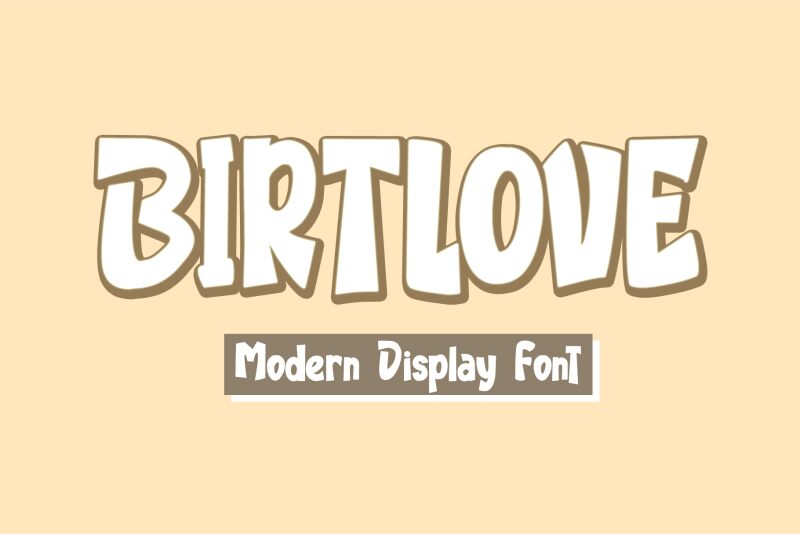
BIRTLOVE is a bold, condensed display font designed by Ahmad Afandi. It has a playful cartoon style that makes it perfect for creating logos, posters, flyers and t-shirt designs. With its quirky letterforms and smooth curves, BIRTLOVE is ideal for projects that require an eye-catching and unique look. Use it to add a fun and stylish touch to your designs!